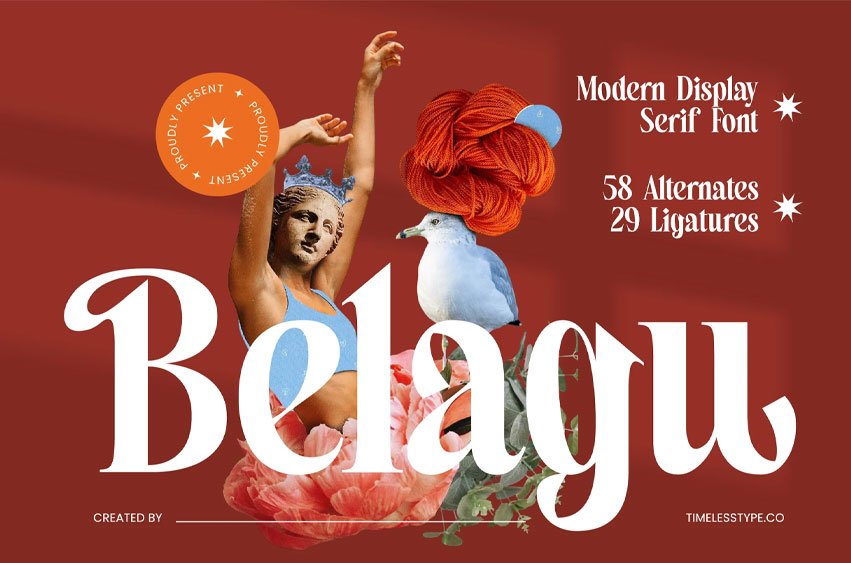
Belagu Font is a modern display serif font that blends artistic curves, bold contrast, and elegant decorative shapes. Its stylish terminals and sculpted forms create a striking contemporary aesthetic with a touch of editorial luxury—perfect for branding, magazine layouts, posters, packaging, expressive logo design, and high-impact creative visuals. With its graceful yet confident voice, Belagu brings sophistication and personality to every project.
Featuring 58 alternates and 29 ligatures, Belagu offers extensive typographic flexibility for crafting ornate titles, custom wordmarks, refined monograms, and visually rich compositions. Its modern serif structure, dramatic detailing, and artistic flair make it an excellent choice for designers seeking a beautiful, expressive, and premium display serif.